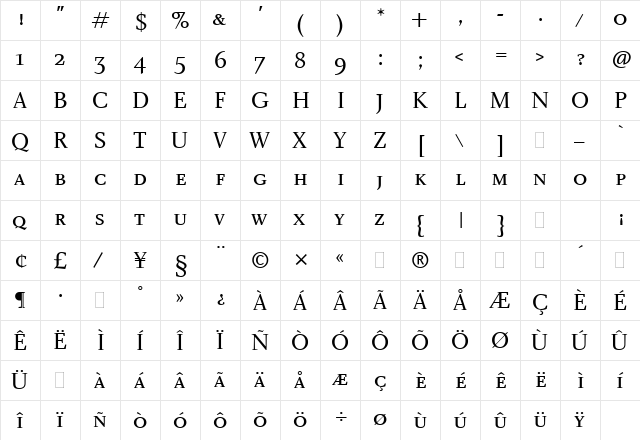
Charlotte Small Caps LET Regular
| Foundry | International Typeface Corporation |
| Designer | Michael Gills |
Design Context for Charlotte Small Caps LET Typeface
Charlotte Small Caps LET offers clean, dependable letterforms without strong stylistic allegiance, making it a practical choice for designers who need flexibility.